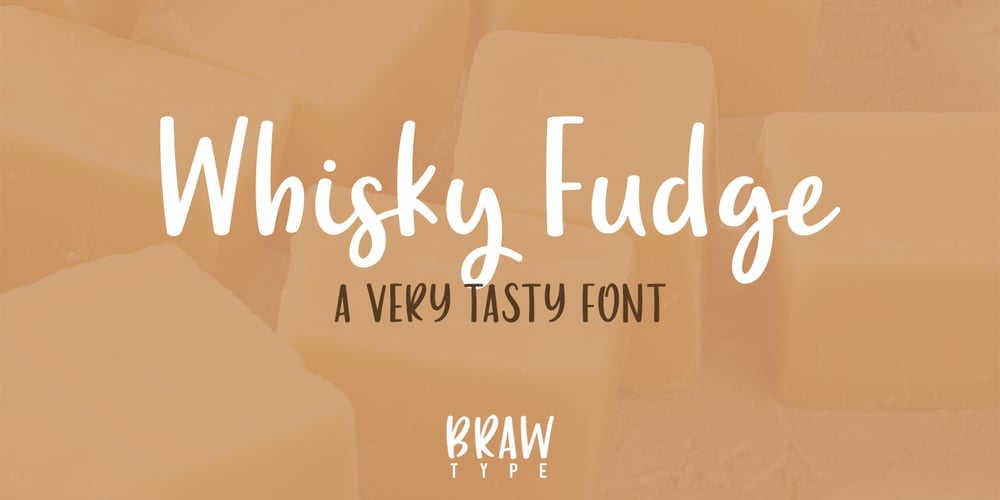
Whisky Fudge
Whisky Fudge font
Whisky Fudge Font Family was designed by Rae Arnott and published by Braw Type. Whisky Fudge contains 1 styles and family package options. Whisky fudge is a tasty handmade font! With its smooth edges and fun style Whisky Fudge will make your creative projects look simply delicious! Giving your design ideas a more personal touch, it’s a great choice for gift tags, greeting cards and invitations. The font comes with a set of standard ligatures (including double letters) and 5 final form characters to add extra flavour to your words. Uppercase letters also look great on their own for added creativity.Enjoy!